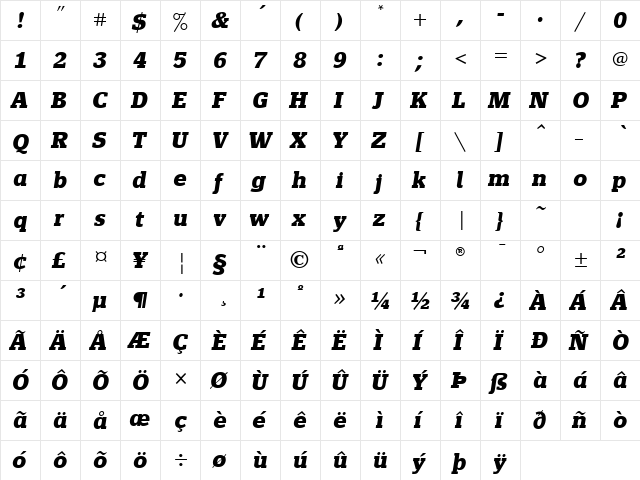
Siseriff LT Std BoldItalic Regular Font Preview
| Foundry | Linotype Library GmbH |
| Designer | Bo Berndal |
Design Context for Siseriff LT Std BoldItalic Typeface
Siseriff LT Std BoldItalic carries the refined structure of traditional serif typography, with bracketed terminals and considered proportions that communicate credibility and craft. Its italic angle brings a sense of urgency and motion to the letterforms. Its bold stroke weight gives it real presence on the page.